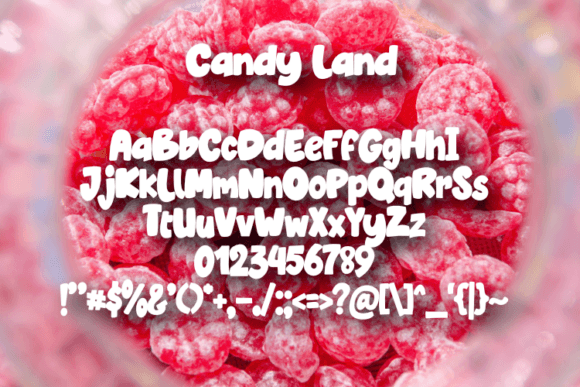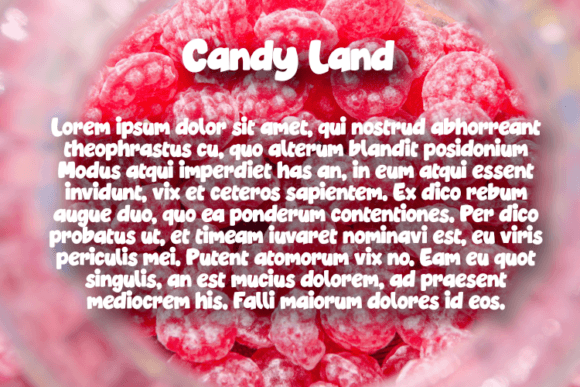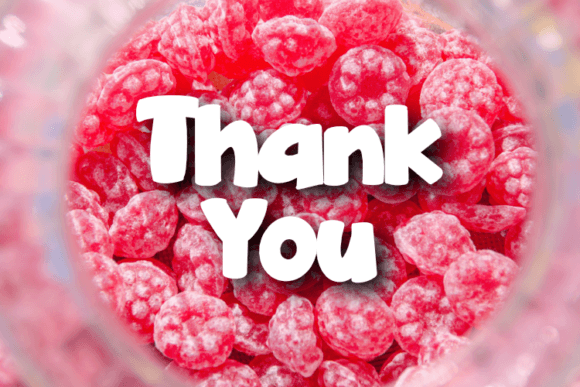
Candy Land Font: A Sweet Addition to Your Design Toolkit
Embark on a typographical journey with Candy Land, a versatile font meticulously crafted for use in clothing, t-shirt prints, and a wide array of other design contexts. Its compatibility with all software makes it your reliable partner in your creative process. Included within Candy Land’s package, you will find otf and ttf files, facilitating a smooth design experience on any platform. So, prepare to enhance your design aesthetics with Candy Land’s distinctive charm.
The Inspiration Behind Candy Land Font
Candy Land, the iconic board game, has been a beloved favorite among children and adults alike for generations. Its colorful and whimsical world has inspired countless artists, designers, and crafters. The Candy Land font takes its cue from this sugary sweet universe, bringing a playful and fun vibe to your designs. Whether you’re creating t-shirt prints, stickers, or any other type of design, Candy Land font is sure to add a pop of personality and whimsy.
Key Features of Candy Land Font
- Versatility: Candy Land font is designed to be versatile, making it perfect for a wide range of design applications, from clothing and accessories to digital graphics and signage.
- Distinctive Charm: Candy Land font boasts a unique and recognizable style that adds a touch of playfulness and fun to any design.
Design Applications for Candy Land Font
Candy Land font is an excellent addition to any designer’s toolkit, offering a wide range of creative possibilities. Here are some design applications where Candy Land font truly shines:
- T-Shirt Prints: Add a playful touch to your t-shirt designs with Candy Land font, creating eye-catching and fun prints that are sure to appeal to a wide audience.
- Stickers and Labels: Use Candy Land font to create colorful and whimsical stickers and labels for parties, gifts, or any other occasion.
- Digital Graphics: Incorporate Candy Land font into your digital graphics, such as social media posts, blog headers, or website designs, to add a touch of personality and whimsy.
- Signage and Displays: Candy Land font is perfect for creating eye-catching signage and displays for events, exhibitions, or retail spaces.
Tips for Using Candy Land Font
To get the most out of Candy Land font, here are some tips to keep in mind:
- Experiment with Colors: Candy Land font looks great in bright, bold colors. Experiment with different color combinations to create unique and eye-catching designs.
- Play with Typography: Don’t be afraid to experiment with different typography styles, such as layering or combining Candy Land font with other fonts.
- Add Texture and Patterns: Add texture and patterns to your designs to give them an extra layer of depth and visual interest.
Candy Land font is a sweet addition to any designer’s toolkit, offering a unique and versatile typographical solution for a wide range of design applications. Its compatibility with all software, included otf and ttf files, and distinctive charm make it an excellent choice for designers and crafters looking to add a touch of playfulness and fun to their designs. So why wait? Embark on a typographical journey with Candy Land font today and discover a world of creative possibilities!